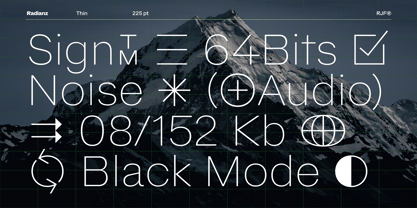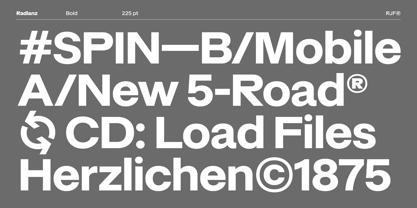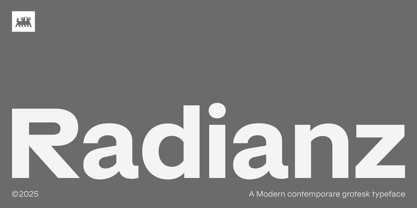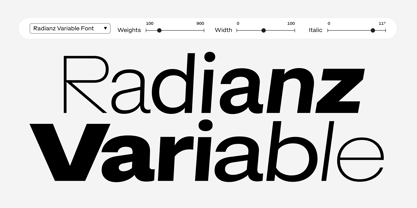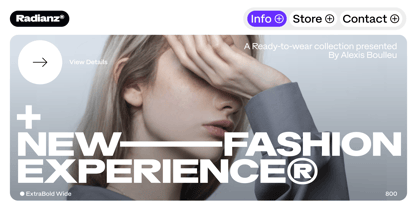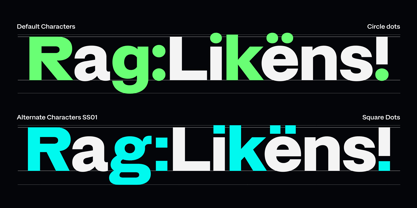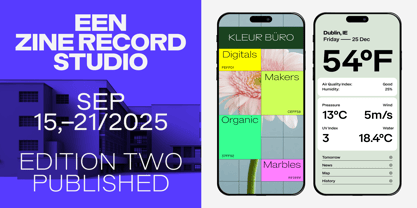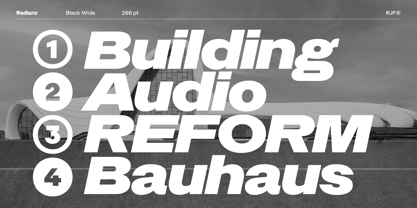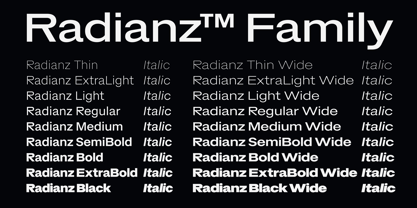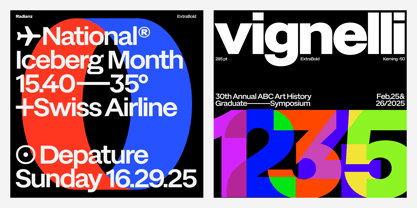
Radianz
The Radianz Font Family was designed by Mark Bagio and published by Jet type system. Radianz contains 37 styles and family package options. More about this family
Radianz is a modern grotesque typeface inspired by the clarity and optimism of mid-century graphic design. Blending geometric rigor with subtle humanist warmth, it offers a fresh interpretation of the neo-grotesk genre—clean, confident, and highly adaptable across design contexts. Designed in 36 static styles and a single variable font, Radianz allows users to explore a wide expressive range while maintaining visual consistency and clarity.
Its variable font includes three finely calibrated axes. Weight, Width, Italic—enabling designers to dial in any style from Thin to Black, Normal to Wide, Upright to Italic, all from a single file. This approach drastically reduces file size in web environments, streamlines design workflows, and supports precise typographic control across digital tools. Radianz also features a collection of thoughtful alternate characters, providing stylistic flexibility for diverse tone shifts—from minimal and restrained to playful and expressive.
With robust OpenType features: stylistic sets, case-sensitive punctuation, tabular figures, extended Latin language support—Radianz is built not just as a typeface, but as a system.
Ideal for editorial design, branding, interface design, and motion graphics, it brings together timeless visual principles with modern performance. Both technically efficient and visually refined, Radianz is a typographic solution that adapts as fluidly as the ideas it helps communicate.